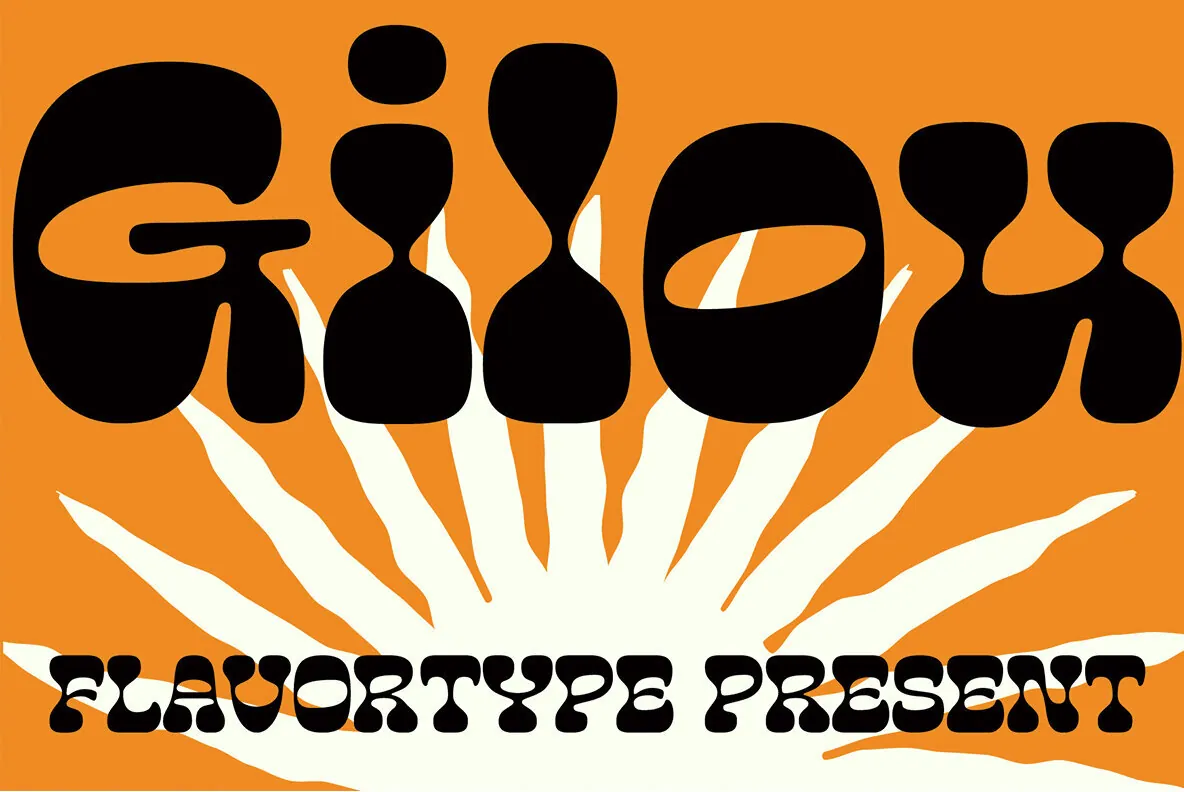
Gilou: A Bold Splash of Retro Charm
Infused with sunshine and retro allure, Gilou injects vibrant personality into every design. Drawing inspiration from 1970s psychedelia and laid-back, beach-inspired daydreams, this font embodies wavy forms and chunky curves filled with soul. It proves an ideal choice for ice cream brands, fizzy beverages, music posters, or any project demanding a touch of nostalgic whimsy.
Whether it’s “Stay Salty!” or “Shell Yeah!”, Gilou adds a coastal flair and infectious energy to your words. With its friendly and funky demeanor, Gilou delivers style and expression in equal measure.
Available as a Variable Font for smooth transitions
Contains 6 weights, ranging from light to bold and bubbly
Supports multiple languages, spreading its charm globally
Ideal for psychedelic, retro revival, and beach-themed projects